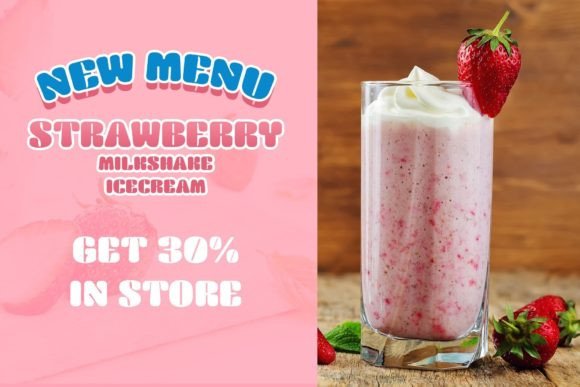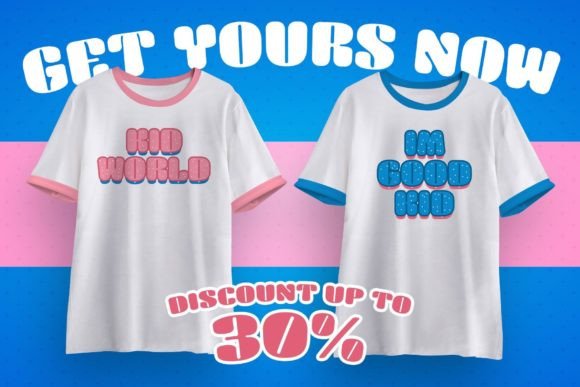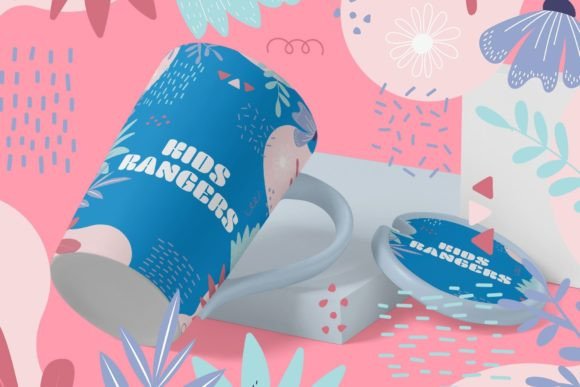
Cashy Font
Cashy is a playful display typeface. Great for creating eye-catching headlines and applicable for any type of graphic design web, print, motion graphics, perfect for t-shirts and other items like logos, posters/ flyers, branding, packaging, etc.